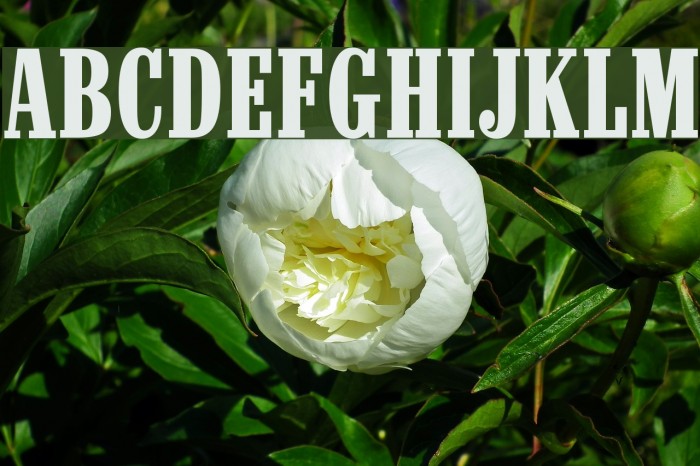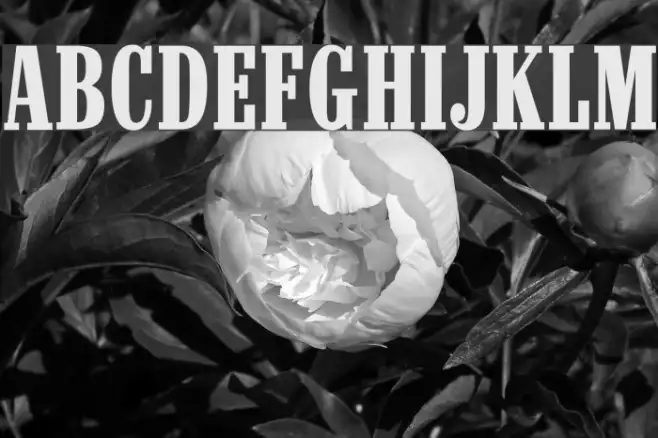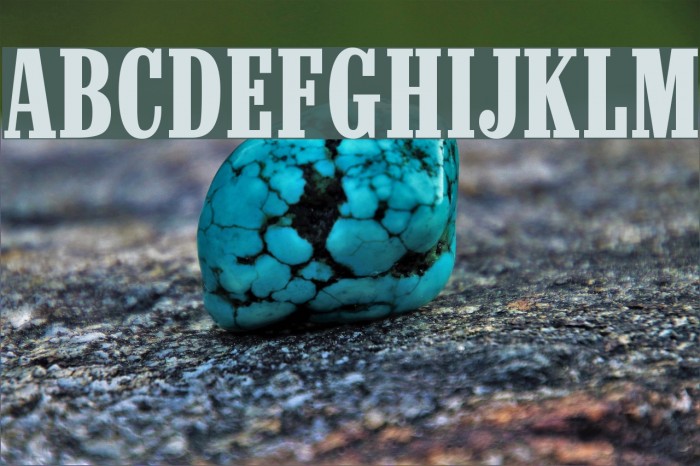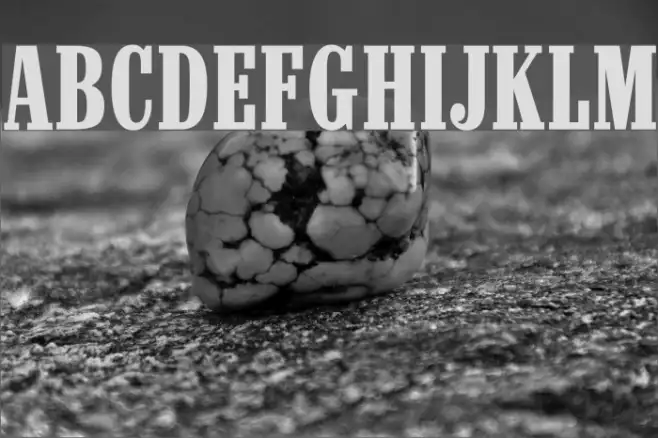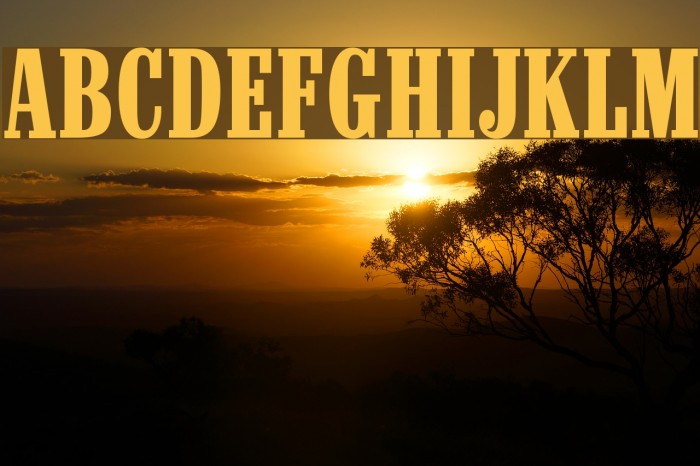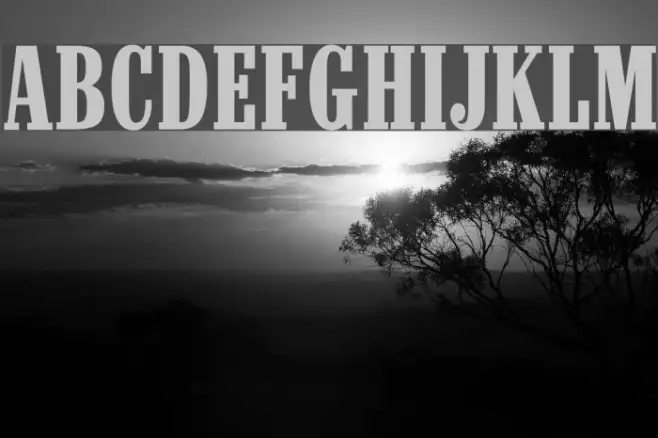
Marlboro Regular Font
Marlboro Regular Description
This font features a bold and commanding presence with thick, robust strokes that convey strength and authority. The serifs are pronounced, adding a classic touch to the overall design. The uppercase letters are tall and imposing, while the lowercase letters maintain a consistent weight, ensuring readability. The numerals are clear and distinct, with a uniform width that complements the alphabetic characters. Special characters are well-defined, maintaining the font's bold aesthetic. The overall style is reminiscent of traditional serif fonts, making it suitable for projects that require a strong, classic look.
| Overall Style | Classic |
| Proposed Projects | Ideal for headlines, branding, posters, and any design requiring a strong, authoritative presence. |